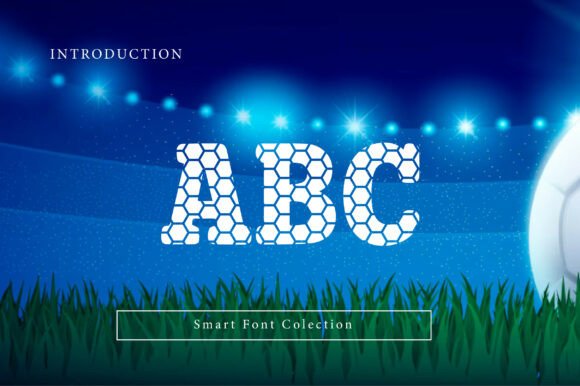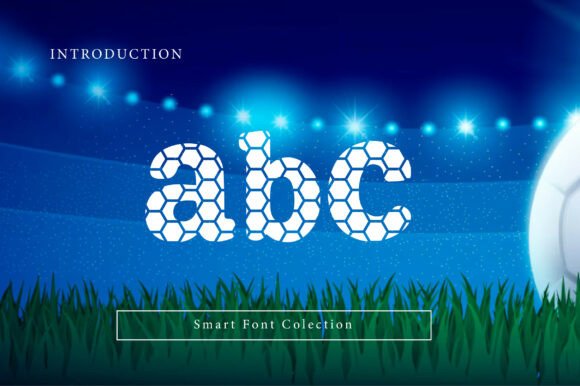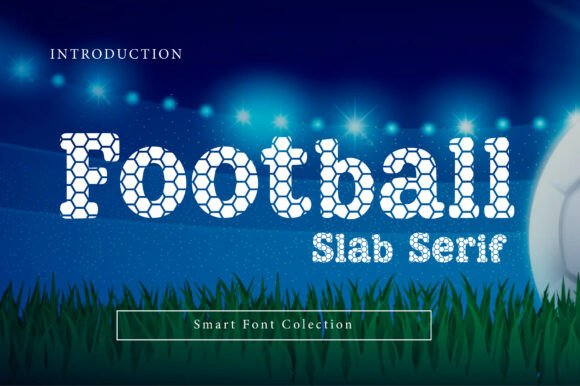
Introducing Football Font: The Ultimate Typeface for Sports and Team Spirit
Are you looking for a font that embodies the energy, power, and competitive spirit of sports? Look no further than Football Font, a high-octane “smart font” designed specifically for the world of sports, competition, and team spirit. This innovative typeface takes the classic collegiate “block” look and reinvents it with a unique hexagonal “honeycomb” texture inside the letterforms, mimicking the stitching and materials found in modern athletic gear.
A Font Built for Speed, Power, and High-Visibility
Football Font is built for speed, power, and high-visibility, making it the ultimate choice for jersey numbers, stadium signage, and sports-themed marketing. When using Football Font, you immediately tap into a “winner’s” aesthetic that is perfect for e-sports branding, gym logos, and university athletic departments. The thick, unbracketed serifs of this Football Slab Serif typeface provide a grounded, indestructible feel, while the internal texture adds a layer of “tech-heavy” sophistication that standard block fonts lack.
Key Features of Football Font
- Unique Hexagonal Texture: The hexagonal “honeycomb” texture inside the letterforms gives Football Font a distinctive look that sets it apart from other fonts.
- High-Visibility: The font’s design ensures that it remains visible and legible, even from a distance, making it perfect for stadium signage and jersey numbers.
- Thick, Unbracketed Serifs: The serifs provide a grounded, indestructible feel that conveys strength and power.
- Tech-Heavy Sophistication: The internal texture adds a layer of sophistication that standard block fonts lack.
Tips for Using Football Font
To enhance the impact of Football Font, try using it with a heavy “drop-shadow” or a metallic stroke to give it a 3D, trophy-like appearance. This will add an extra layer of depth and visual interest to your design. Additionally, Football Font pairs well with other fonts that have a similar bold and athletic feel, making it easy to create a cohesive and visually appealing design.
Football Font is perfect for designers and crafters who want to create sports-themed designs that stand out from the crowd. Whether you’re designing jerseys, logos, or marketing materials, Football Font provides a unique and versatile typeface that can be used in a variety of contexts. Its high-octane design makes it perfect for e-sports branding, gym logos, and university athletic departments.
Applications of Football Font
- E-Sports Branding: Football Font is perfect for e-sports teams and organizations looking for a bold and modern typeface.
- Gym Logos: The font’s design makes it perfect for gym logos and fitness-related branding.
- University Athletic Departments: Football Font is a great choice for university athletic departments looking for a typeface that embodies team spirit and competitiveness.
- Jersey Numbers and Stadium Signage: The font’s high-visibility design makes it perfect for jersey numbers and stadium signage.
Football Font is a high-octane typeface that embodies the energy, power, and competitive spirit of sports. Its unique hexagonal texture, high-visibility design, and tech-heavy sophistication make it the ultimate choice for designers and crafters looking to create sports-themed designs that stand out from the crowd. Whether you’re designing jerseys, logos, or marketing materials, Football Font provides a versatile and bold typeface that is sure to make a statement.